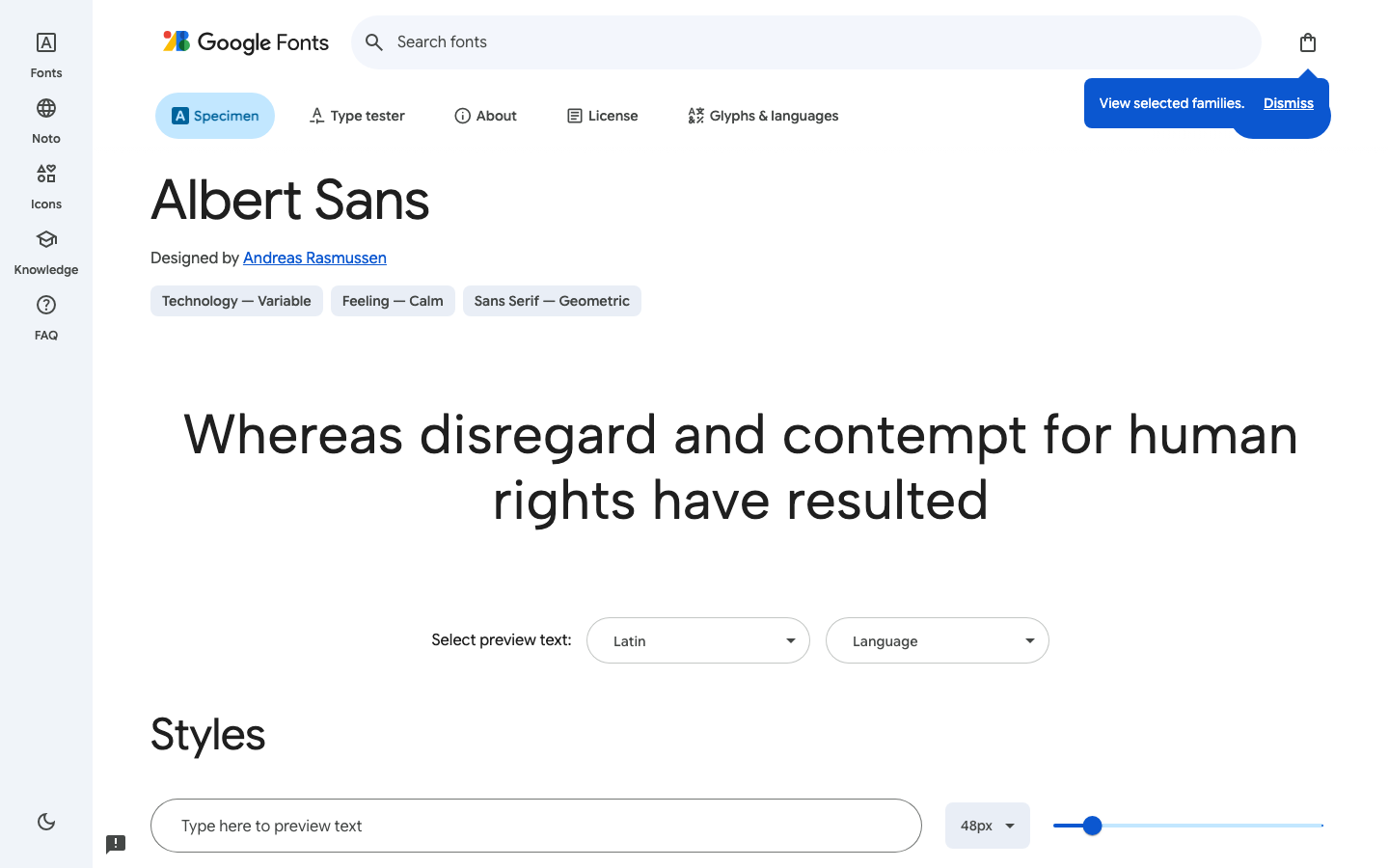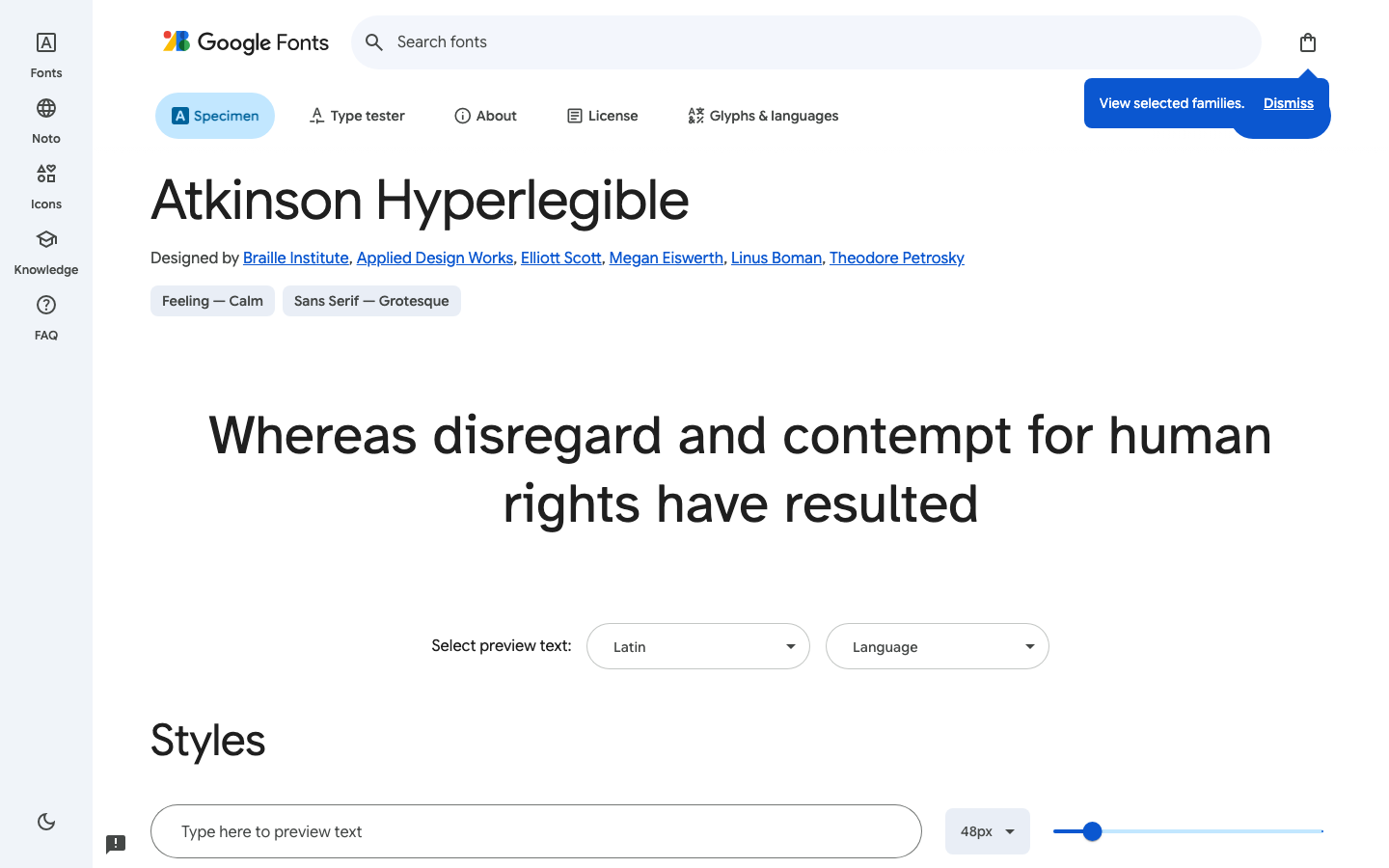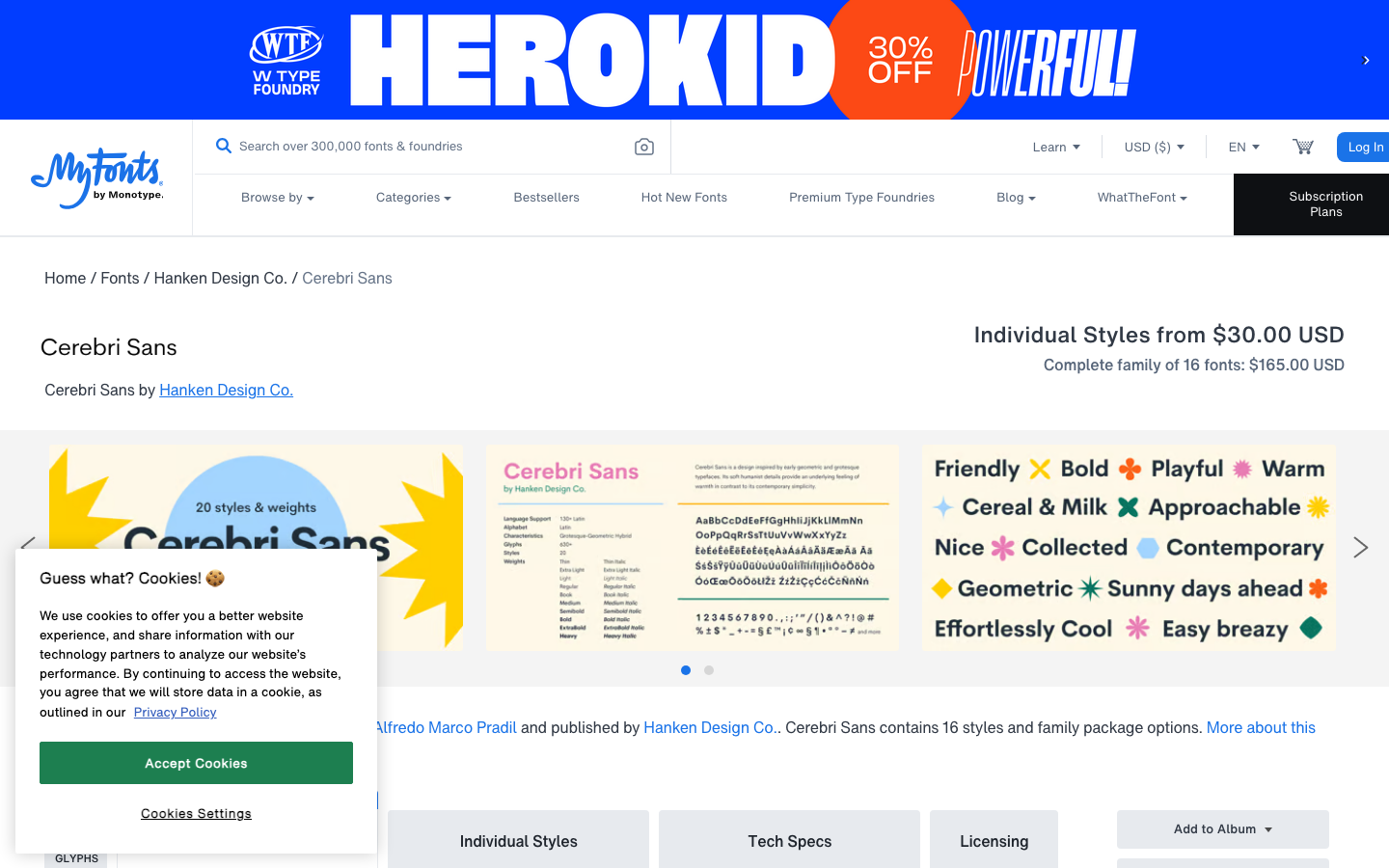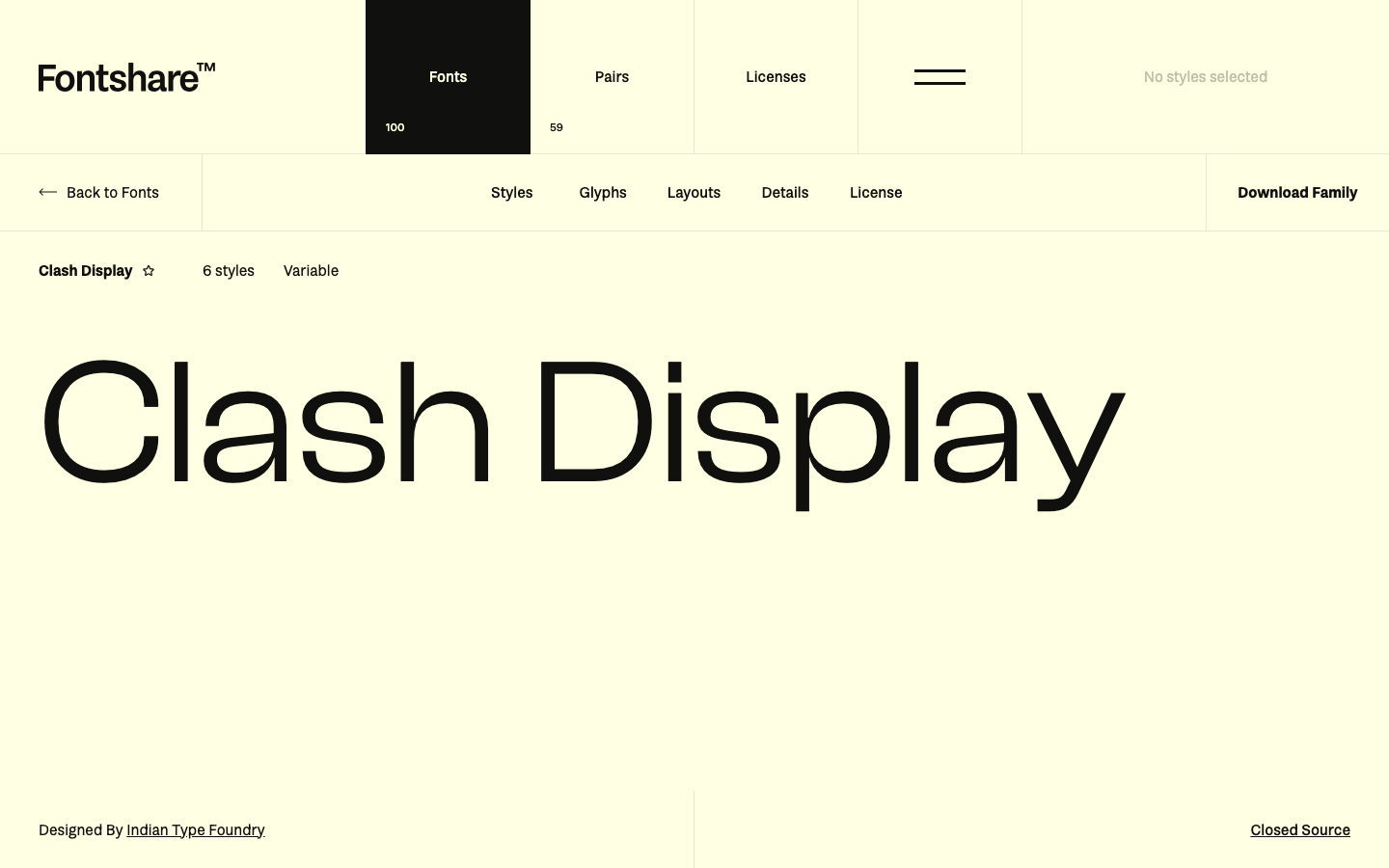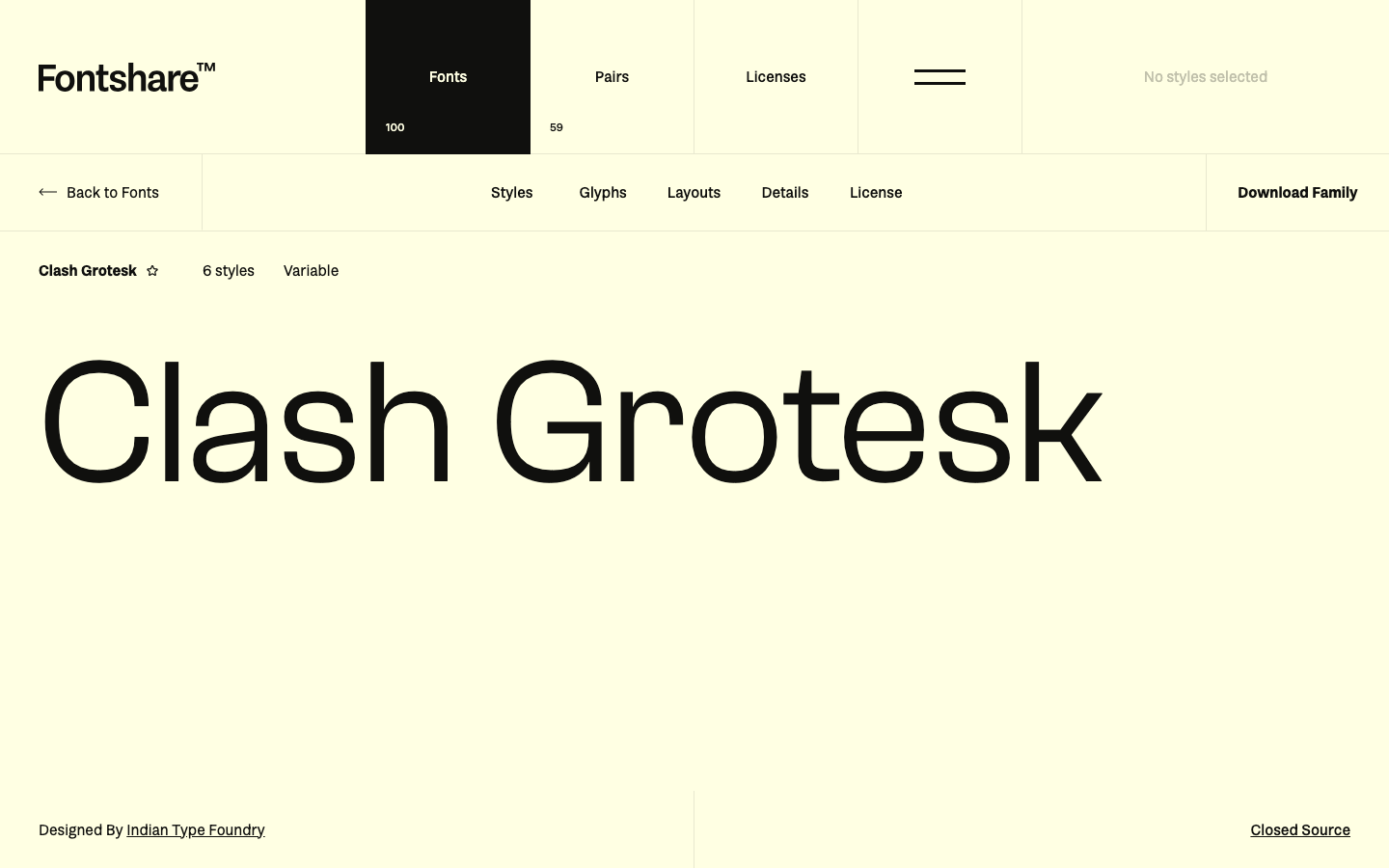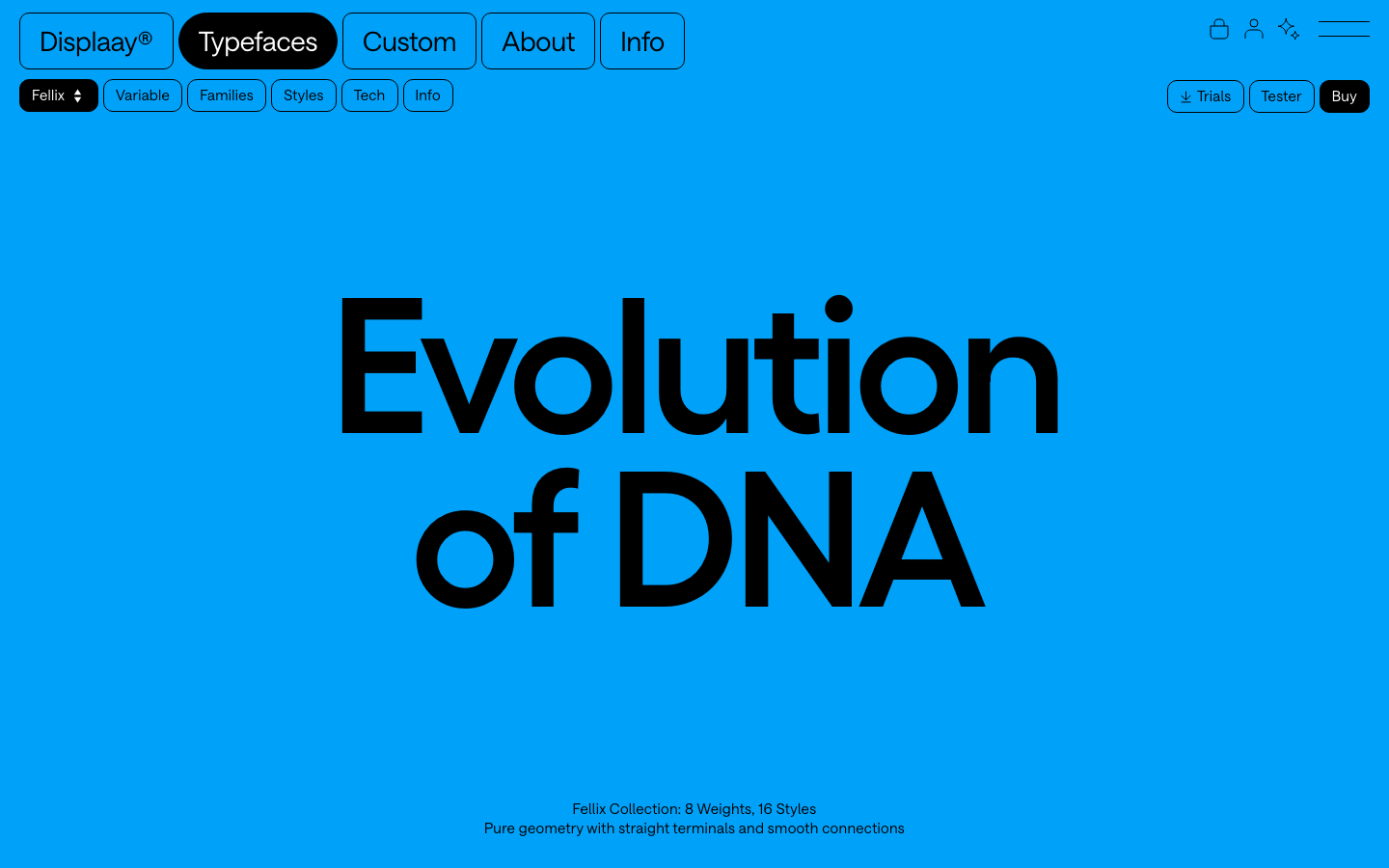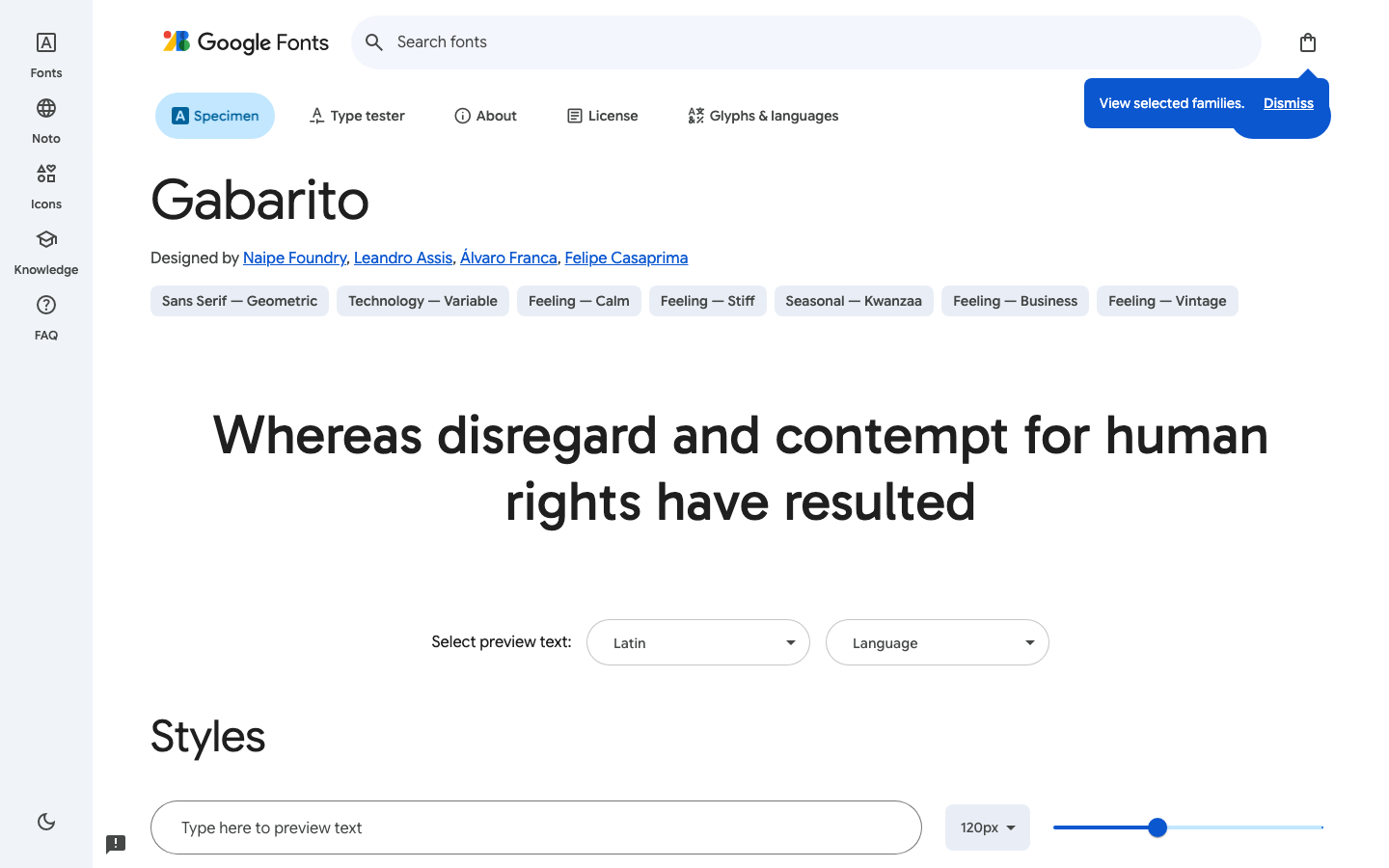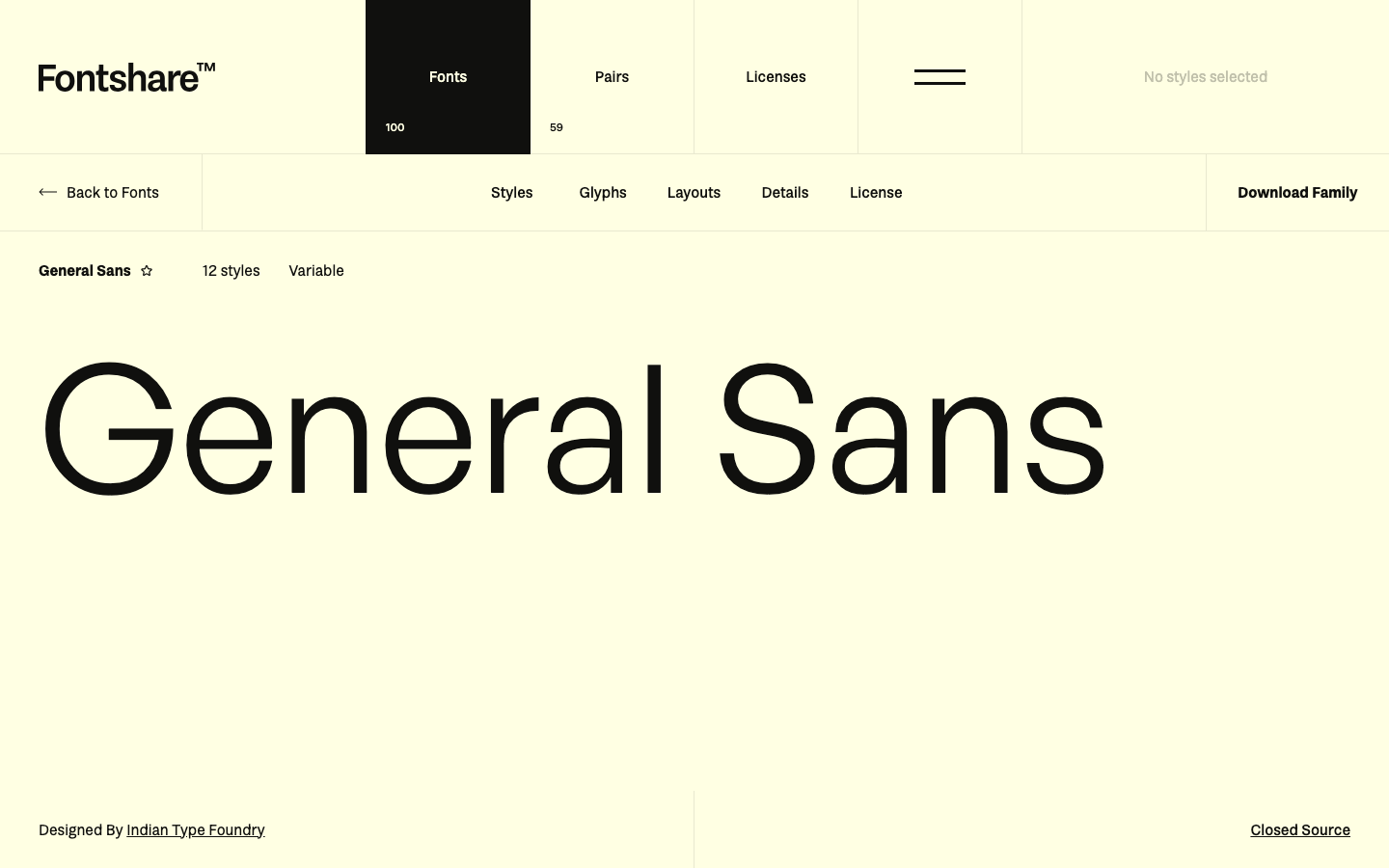
Best Fonts for SaaS Products
Typography designed for software-as-a-service interfaces. SaaS fonts balance professional credibility with friendly approachability, ensuring clarity in complex dashboards and marketing pages.
Free Fonts for SaaS
Open-source fonts perfect for saas projects.
Premium SaaS Fonts You Can Replace
Popular premium fonts for saas with free open-source alternatives.
What font style works best for SaaS products?
Geometric and humanist sans-serifs dominate SaaS design. They project modernity and efficiency while remaining approachable. Fonts like Inter, Nunito Sans, and Poppins are popular choices that balance professionalism with friendliness.
Should SaaS products use the same font for marketing and product?
Many SaaS products use different fonts for marketing sites (personality-driven) and product interfaces (clarity-focused). However, maintaining consistency builds brand recognition. Consider a versatile font family that works in both contexts.
What free fonts do successful SaaS companies use?
Inter has become the de facto SaaS font due to its excellent UI performance. Nunito Sans offers a friendlier alternative. For marketing pages, Poppins and Montserrat add personality while maintaining professionalism.